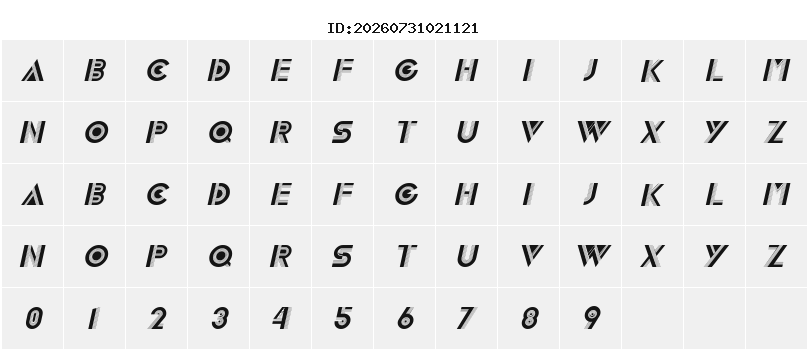
• Font Name: LivelyDisplayCaps
• Full Font Name: LivelyDisplayCaps Italic
About LivelyDisplayCaps.ttf
LivelyDisplayCaps.ttf is a modern, elegant sans-serif font designed for ultimate readability and visual harmony. Perfect for branding, headlines, web design, and print materials.